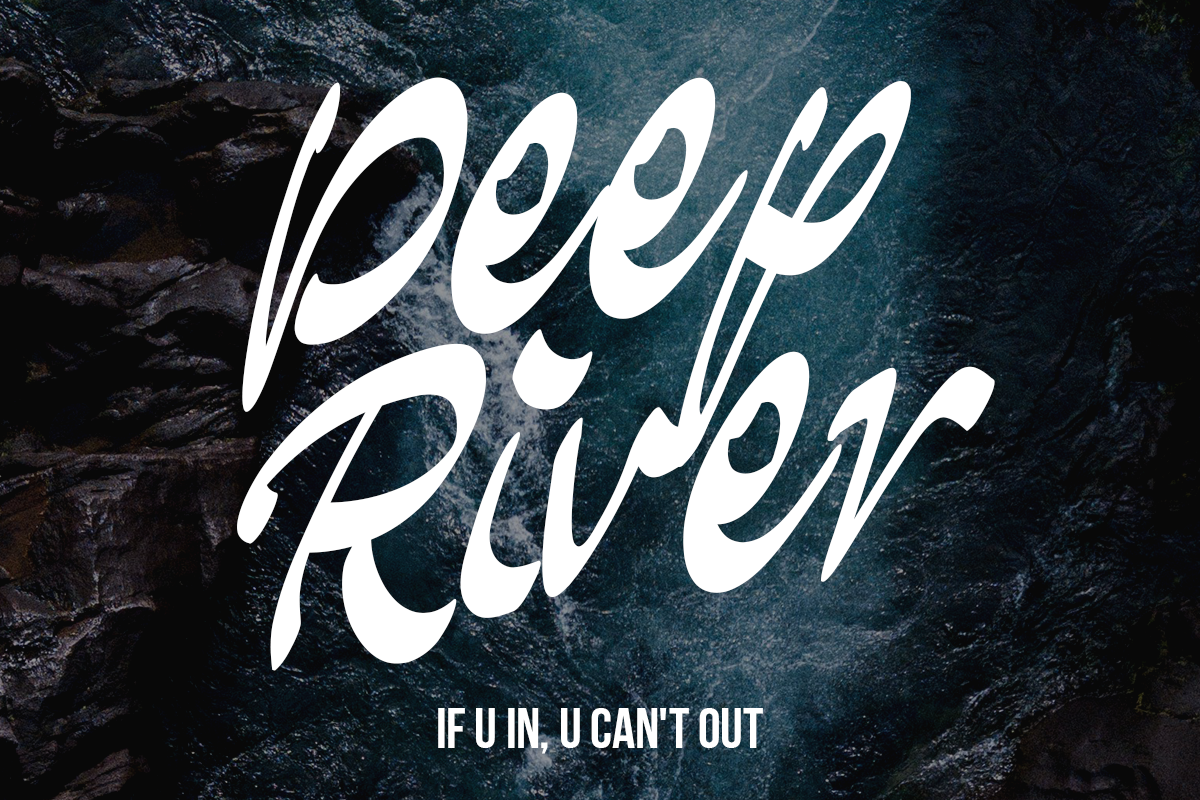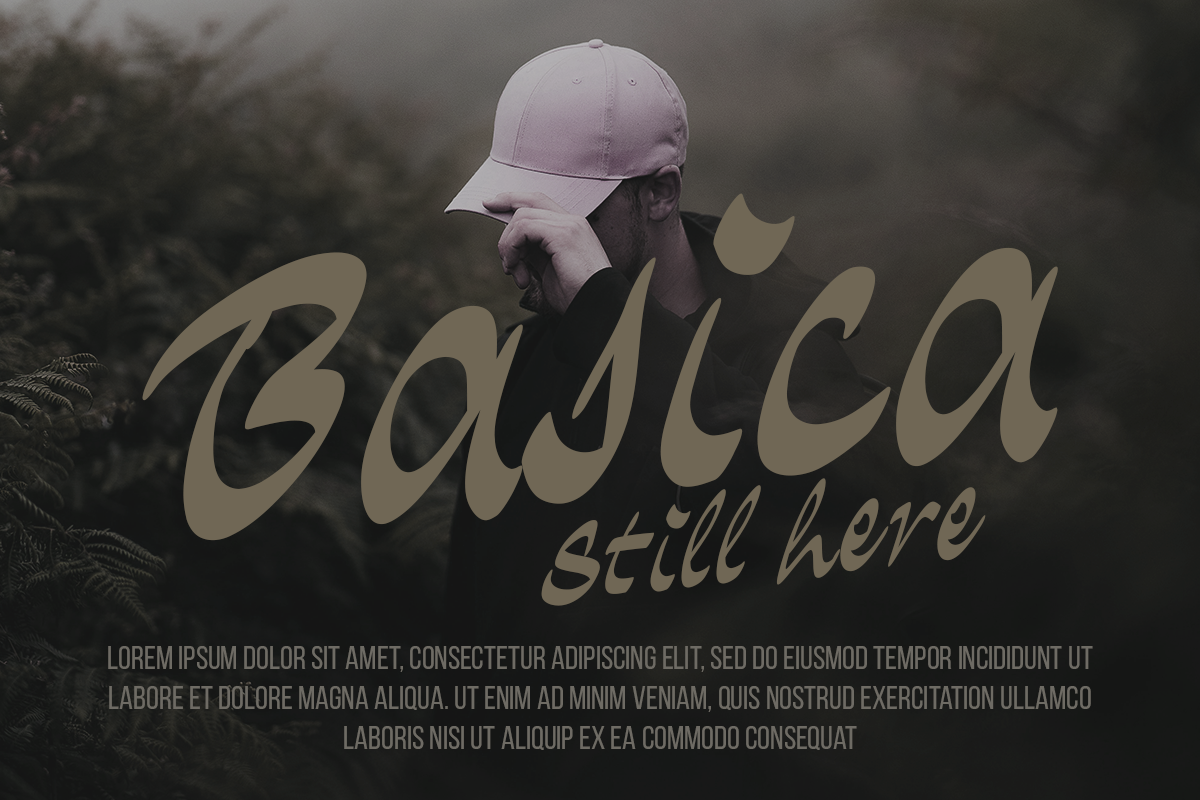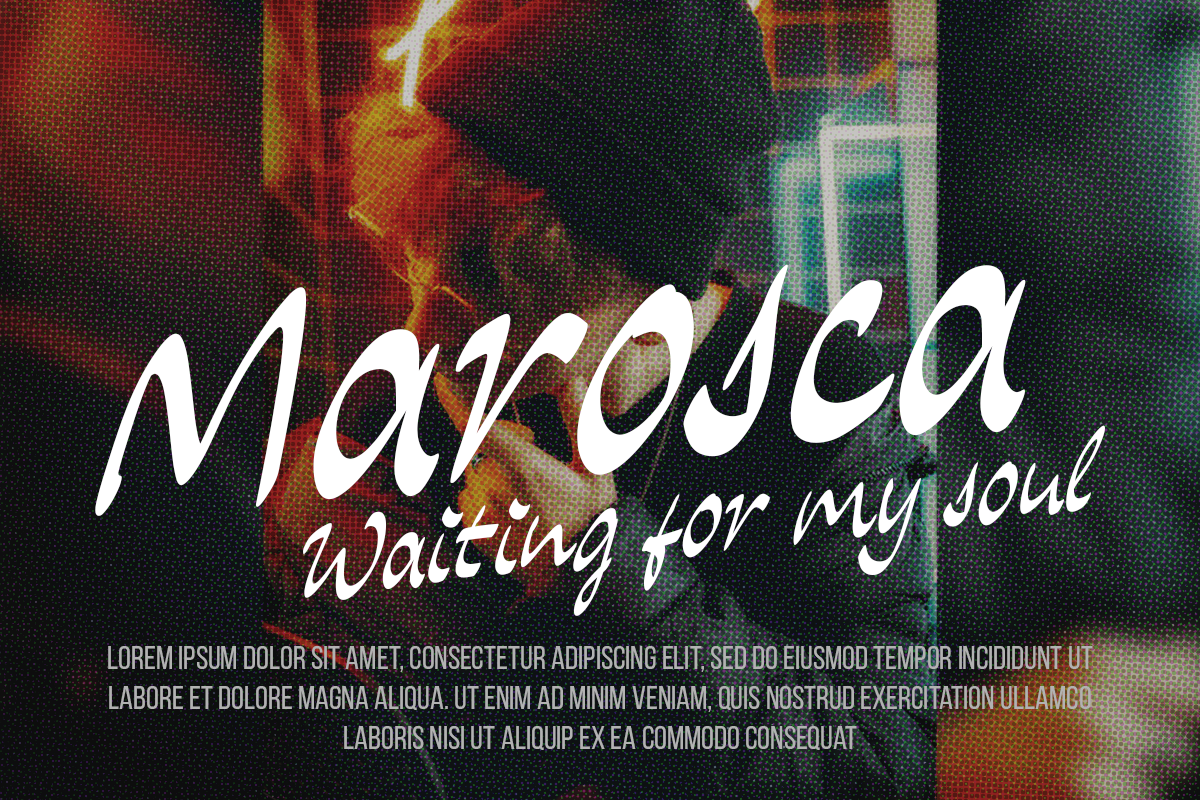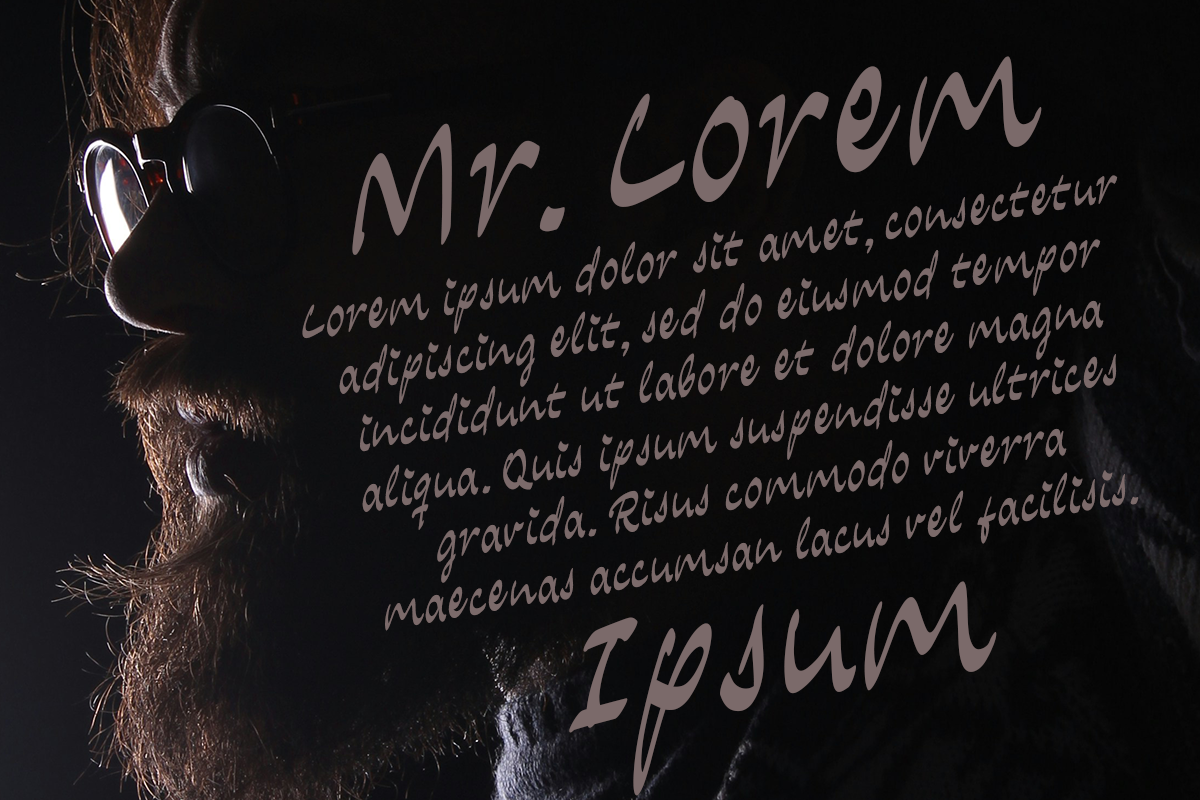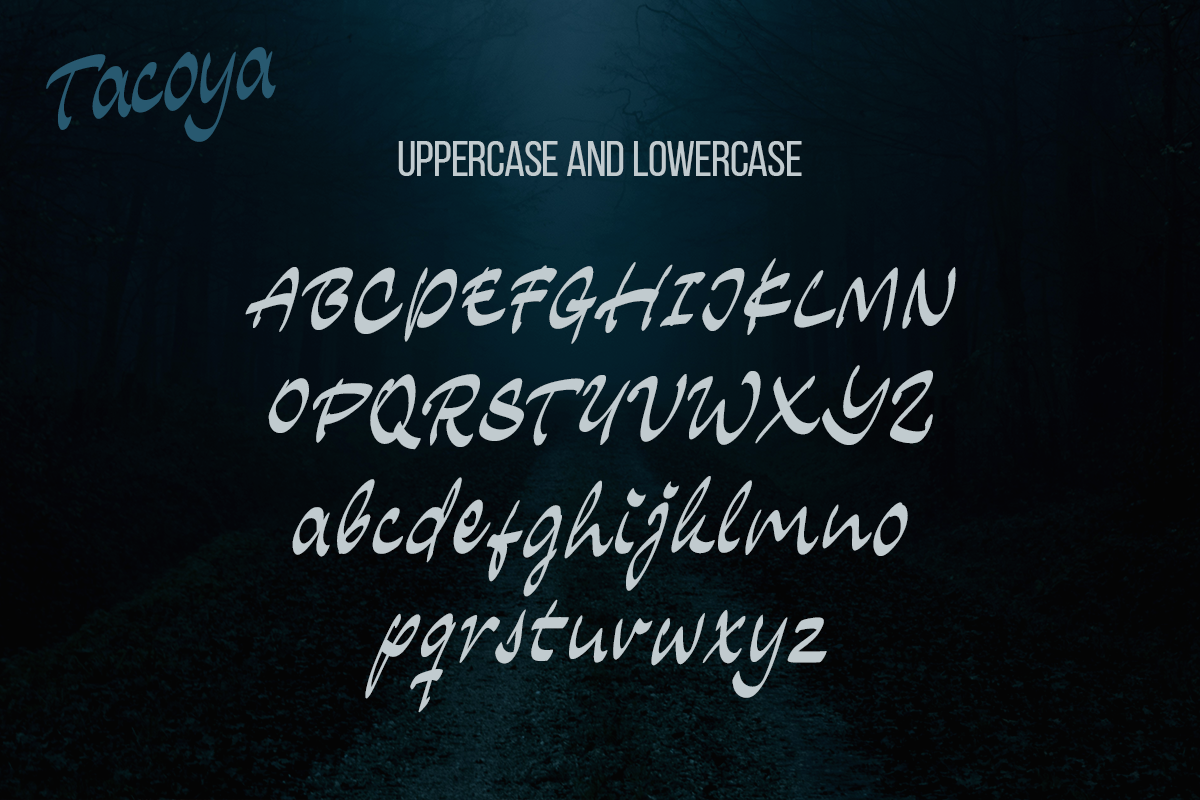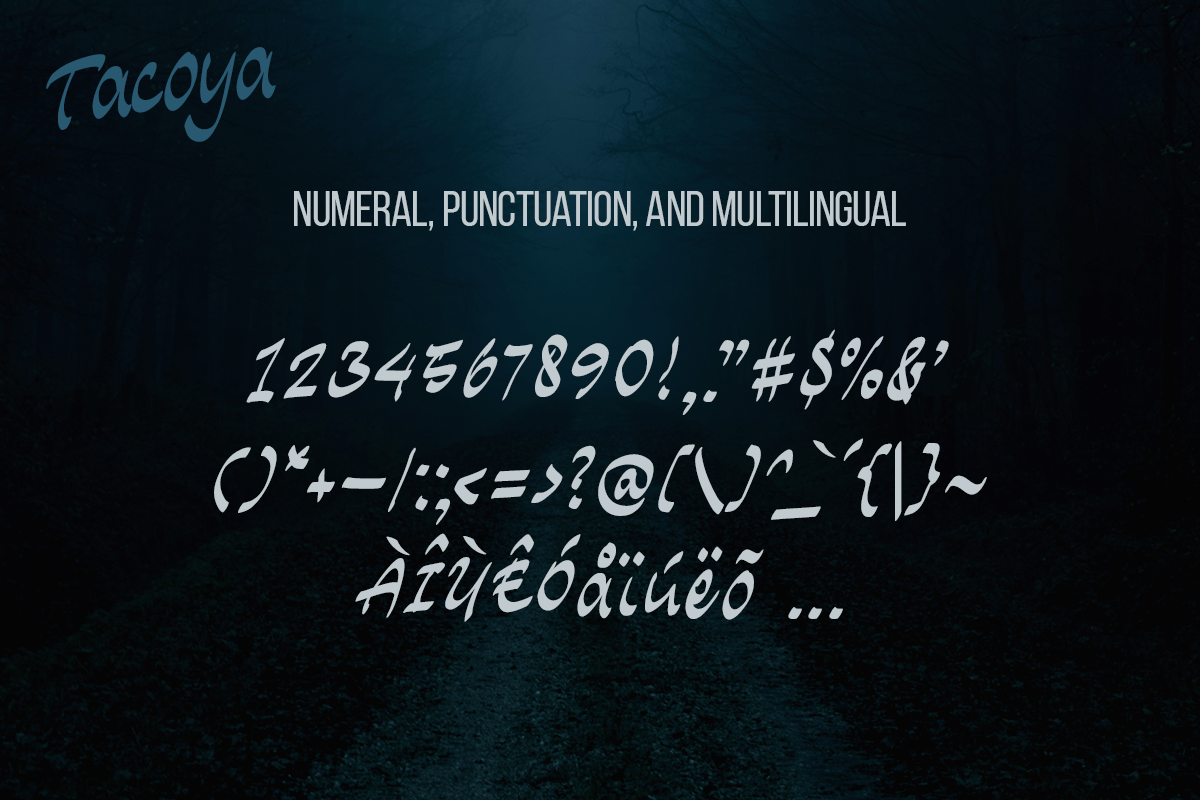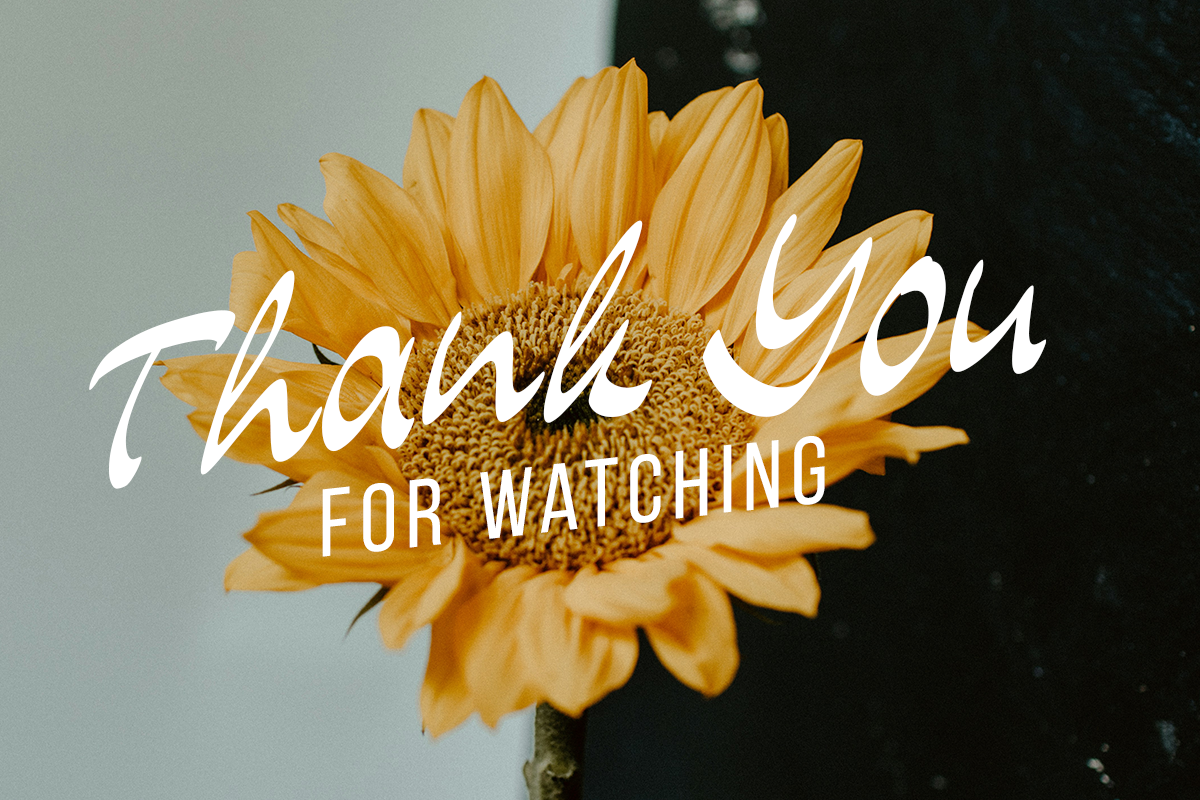
Tacoya Modern Handwritten Script Font is a type of script font family. This typeface is a font type that uses brushes in its creation. Tacoya Modern Handwritten Script Font looks modern and simple style. The simple shape of the font adds to the minimalist and modern impression of the font. At the same time, these facts make Tacoya Modern Handwritten Script Font one of the best choices for using modern lifestyle tools. Tacoya Modern Handwritten Script Font can be used to design graffiti, a mural, wall-paint art, skateboard art, or other types of street-inspired designs. Artworks on clothing items or merchandise, parties, celebrations, or formal events can use Tacoya Modern Handwritten Script Font as part of their design. The suitability of Tacoya Modern Handwritten Script Font against many things shows this font must be taken into appeal and determine which font to use. Our scrip and signature fonts collection is compatible for use as Figma fonts, Canva fonts, Freepik Fonts, and Adobe Fonts. They also work as Windows Fonts and Apple Fonts. For your social media needs, you can use and install the fonts in our collection of brush typefaces to use as Instagram Fonts, Facebook Fonts, and Twitter Fonts.